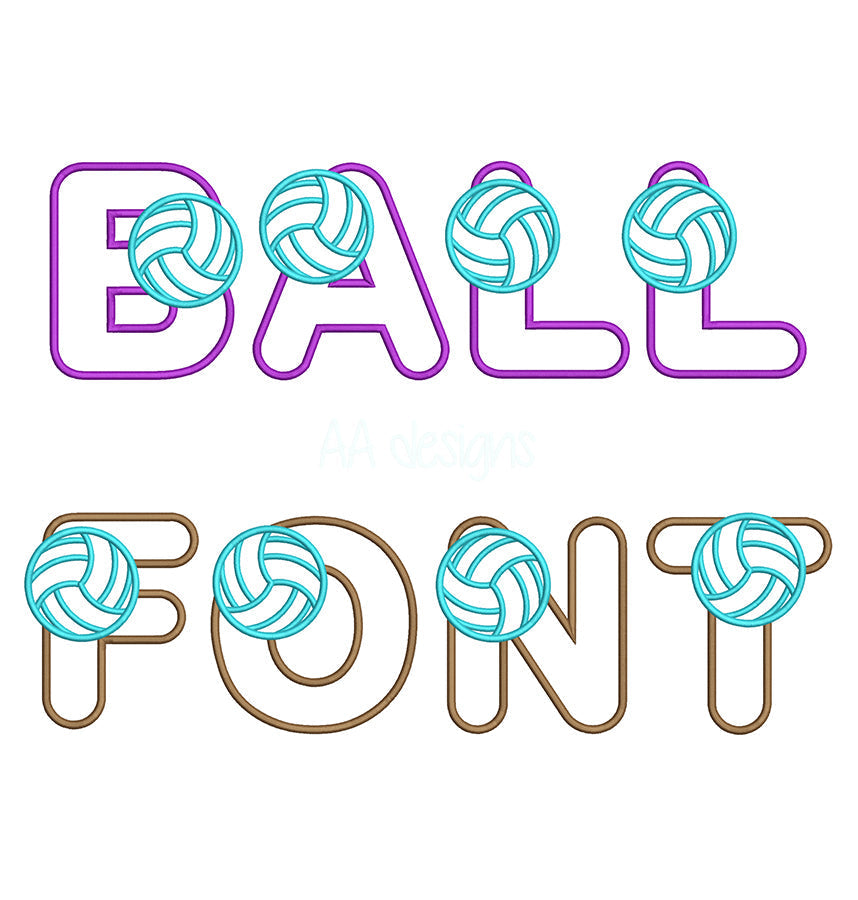
What Is an Applique Embroidery Font?
An applique embroidery font is a special type of machine embroidery font that uses a piece of fabric (the applique) layered on top of the base fabric, then secured with stitching around the edges. The result is bold, colorful lettering with a unique textured look that stands out far more than standard flat embroidery.
If you've ever seen a jersey, kids' garment, or tote bag with chunky, fabric-filled letters — that's applique embroidery at work.
How Does Applique Embroidery Work?
Unlike flat embroidery where thread fills the entire design, applique uses fabric to fill the letter shapes. Here's the basic process:
- Placement stitch: The machine stitches an outline showing where to place the applique fabric
- Place the fabric: You lay a piece of fabric over the stitched outline
- Tack-down stitch: The machine stitches again to secure the fabric in place
- Trim excess fabric: Cut away the fabric outside the stitched border
- Satin border stitch: The machine finishes with a satin stitch border around the letter edges for a clean, professional look
The key advantage: you can use any fabric color or pattern for the fill, giving you unlimited creative options.
Why Choose Applique Fonts?
- 🎨 Bold, colorful results — fabric fills look richer and more vibrant than thread fills
- ⚡ Faster to stitch — fewer stitches needed since fabric replaces thread fill
- 💪 Great for large letters — ideal for 2 inches and above where thread fill would be heavy
- 👕 Versatile — works on t-shirts, bags, kids' clothing, sports uniforms, and more
- 🧵 Mix textures — use patterned, glitter, or contrasting fabric for creative effects
Applique vs Flat Embroidery — Which to Choose?
| Applique Font | Flat Embroidery Font | |
|---|---|---|
| Fill material | Fabric | Thread |
| Best size | 2 inches and above | Any size |
| Stitch count | Lower (faster) | Higher (slower) |
| Color options | Any fabric | Thread colors only |
| Best for | Kids' wear, sports, bags | Logos, fine detail, polos |
| Difficulty | Intermediate | Beginner-friendly |
Tips for Perfect Applique Embroidery
- Use the right stabilizer — cutaway stabilizer works best for stretchy fabrics; tearaway for stable wovens
- Pre-wash your applique fabric — prevents shrinkage after the finished project is washed
- Cut fabric slightly larger than the placement outline — gives you room to trim cleanly
- Use sharp scissors or a rotary cutter for clean edges close to the tack-down stitch
- Test on scrap fabric first — especially when mixing fabric types or weights
- Slow machine speed during the satin border stitch for cleaner edges
- Volleyball Applique Font — Bold sporty letters perfect for team uniforms and sports bags